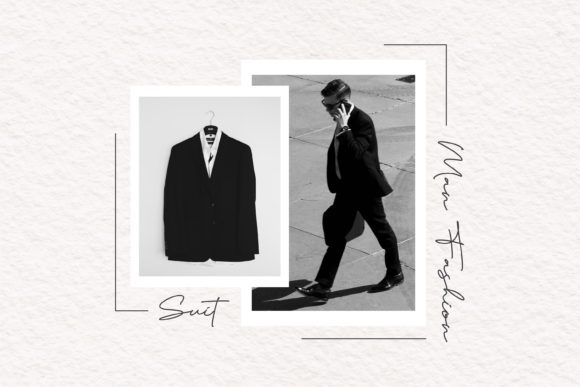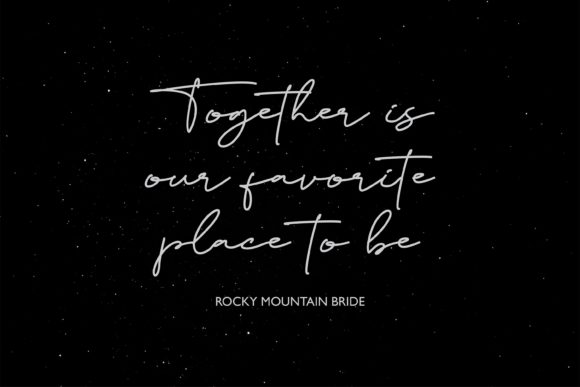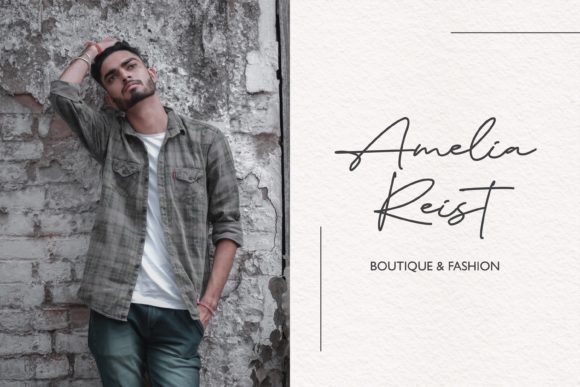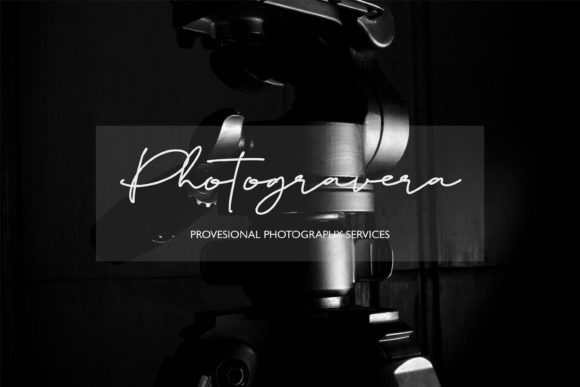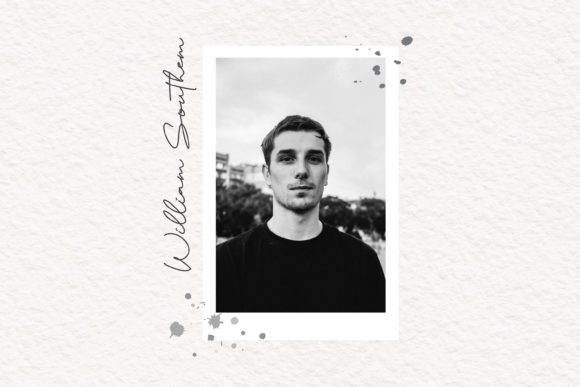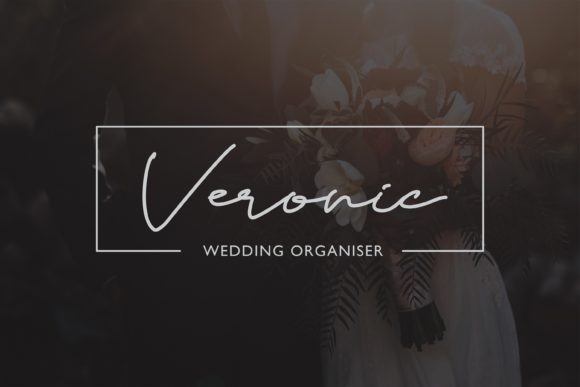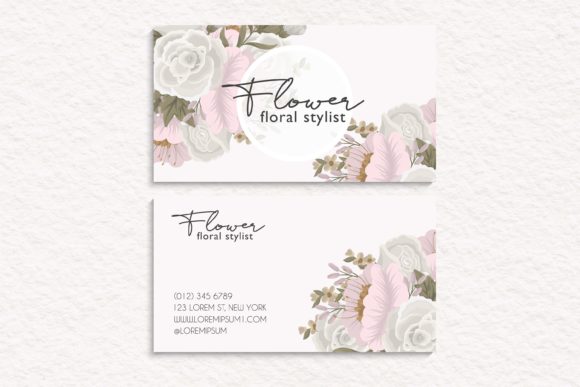
Finlandianight Font
About Finlandianight Font
Finlandianight is a stylish and delicate script font. It has a clean, thin and smooth vibe and it will be a hit for any design that you want to add it to.